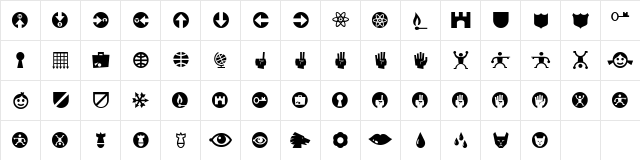
RiansDingbats Two Regular Font Preview
RiansDingbats Two Regular
Design Context for RiansDingbats Two Typeface
RiansDingbats Two takes a measured approach to typography — its balanced proportions and neutral character make it a reliable workhorse for both digital and print work.